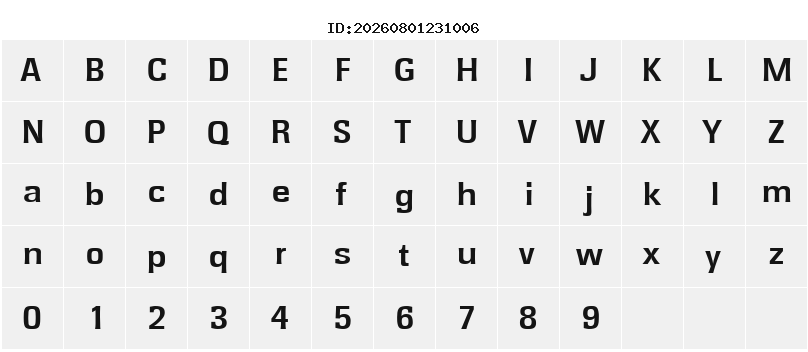
• Font Name: Medway SF
• Full Font Name: Medway SF Bold
Medway SF.ttf is a modern, elegant sans-serif font designed for ultimate readability and visual harmony. Perfect for branding, headlines, web design, and print materials.